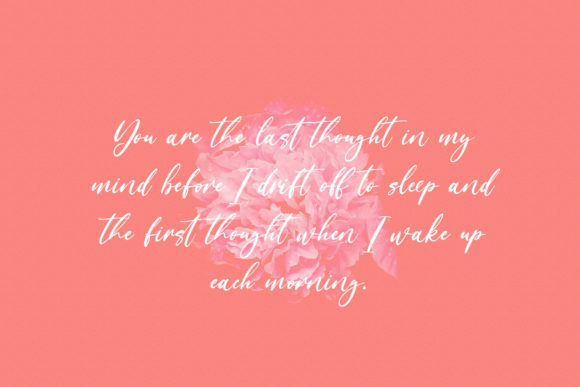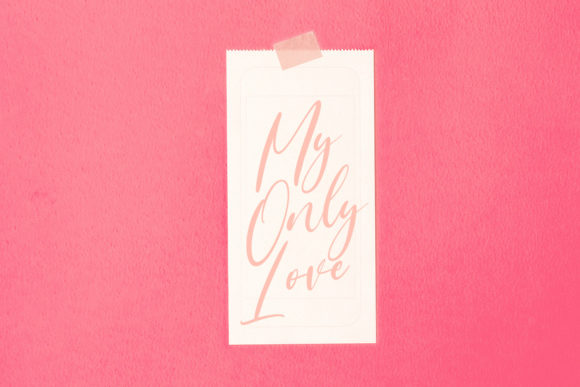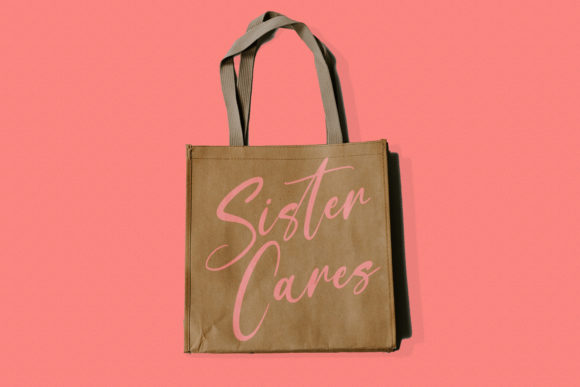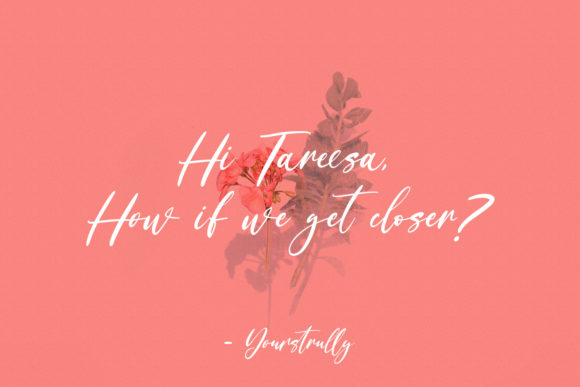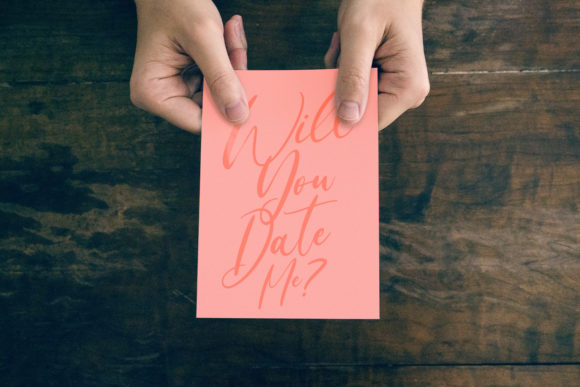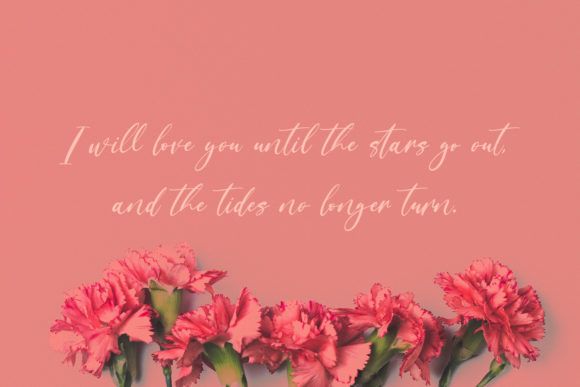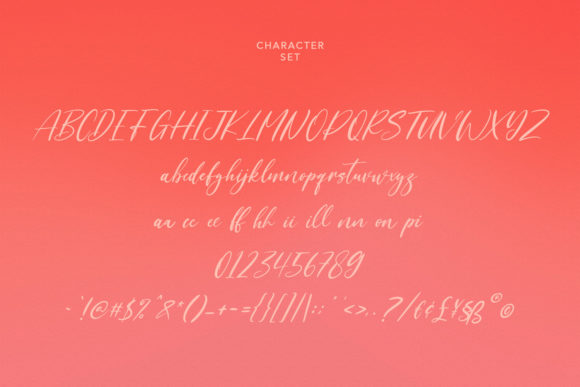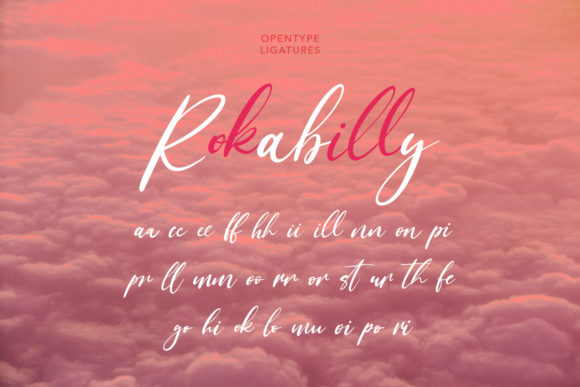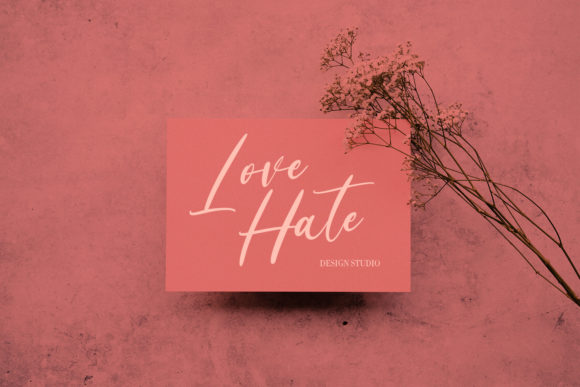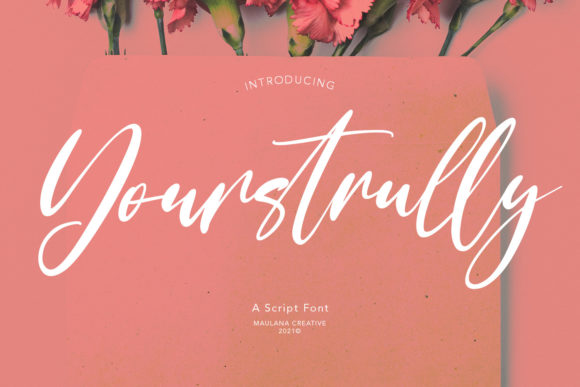
Yourstrully Script Font
About Yourstrully Script Font
Yourstrully Script is a fashionable and cursive script font that exudes elegance, romance, and a touch of sophistication. With its stylish and flowing letterforms, this font is the perfect choice for creating eye-catching logos, branding materials, and quotes that leave a lasting impression.
The unique charm of Yourstrully Script lies in its carefully crafted letter shapes, where every stroke and curve is thoughtfully designed to create a harmonious and visually pleasing composition. Each letter has its own beautiful touch, adding a sense of individuality and character to your designs.
Whether you’re designing a logo for a luxury brand, creating stunning visuals for social media, or crafting inspiring quotes, Yourstrully Script will make your design stand out. Its elegant and romantic aesthetic lends itself well to a variety of projects, from wedding invitations and stationery to packaging and signage.
One of the standout features of Yourstrully Script is its versatility. This font allows you to experiment with different styles and variations, giving you the creative freedom to customize and personalize your designs. Whether you prefer a bold and dramatic look or a more delicate and whimsical feel, Yourstrully Script adapts to your creative vision.
Not only does Yourstrully Script captivate visually, but it also delivers in terms of legibility. Each letter is designed to ensure clarity, even at smaller sizes, making it suitable for various applications across print and digital media.
In addition, Yourstrully Script is highly adaptable, making it easy to incorporate into your design workflow. The font is available in multiple formats, and its glyphs and swashes can be accessed effortlessly using PUA encoding. This allows you to explore the extensive range of decorative elements and add that extra touch of flair to your designs.
Overall, Yourstrully Script is a fashionable, cursive, and incredibly romantic font that elevates your design projects with its unique and beautiful letterforms. Its versatility, elegance, and attention to detail make it a perfect choice for creating eye-catching logos, branding materials, and quotes that truly come alive. Let Yourstrully Script be the key to unlocking your creative potential and capturing the hearts of your audience.